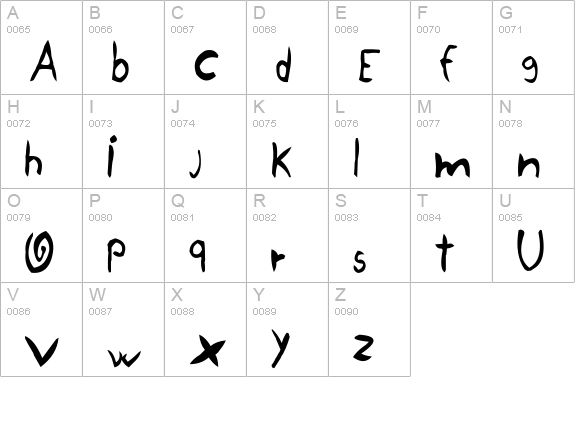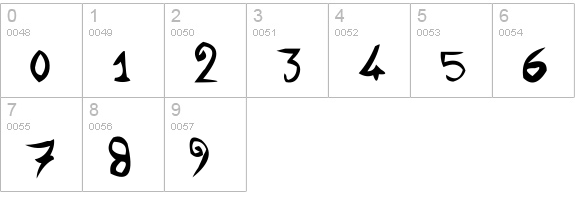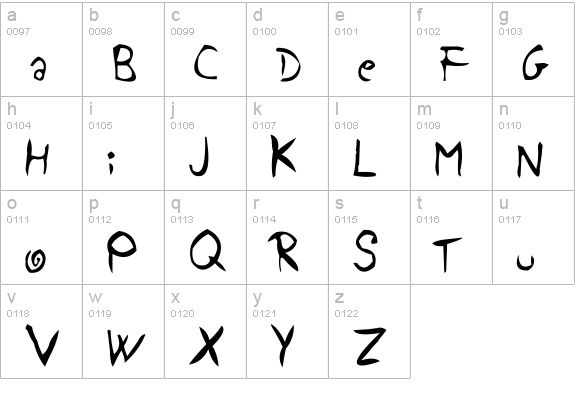
YellowJug font is a versatile and modern typeface that brings a touch of sophistication to any design project. With its sleek lines and elegant curves, this font is perfect for adding a stylish flair to any project, whether it's a logo, poster, or website. The bold yet delicate strokes of YellowJug font make it stand out while still maintaining a sense of elegance. What makes YellowJug font even more appealing is that it is available for free! You can easily download this font at FontsMarket.com, where you can access a wide range of high-quality fonts for all your design needs. Don't miss out on the opportunity to elevate your designs with the beautiful YellowJug font - download it now and see the difference it can make!